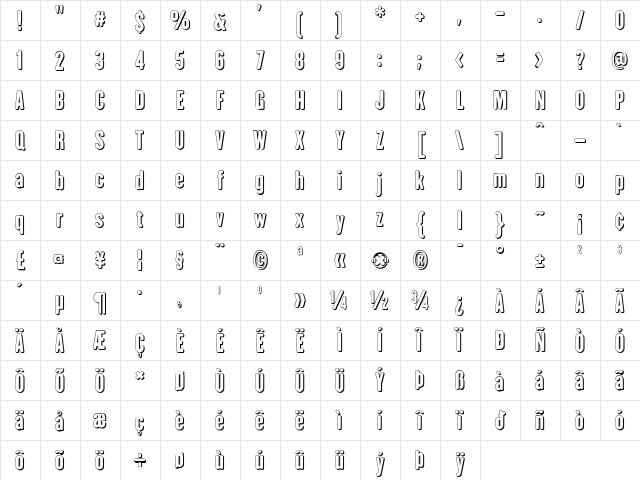
I am Hueca Ultra-condensed Black Free Font
I am Hueca Ultra-condensed Black
Style: Ultra-condensed Black
Foundry: deFharo
Designer: deFharo
Design Context for I am Hueca
I am Hueca is a composed and adaptable typeface that performs quietly and consistently across a wide range of design contexts. Its narrow stance lets it pack a punch even in space-constrained designs.